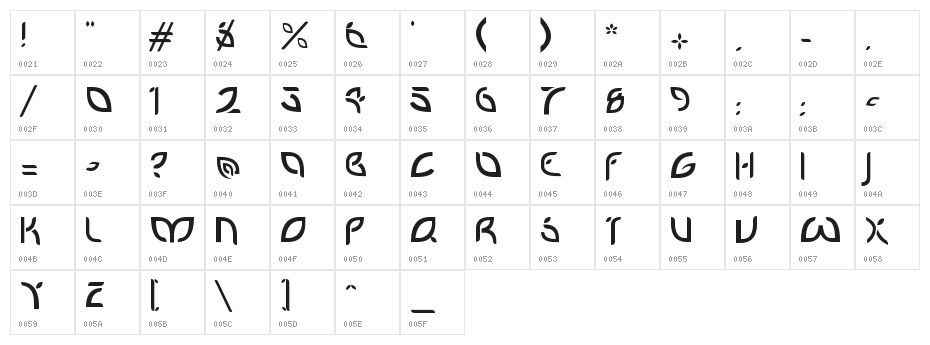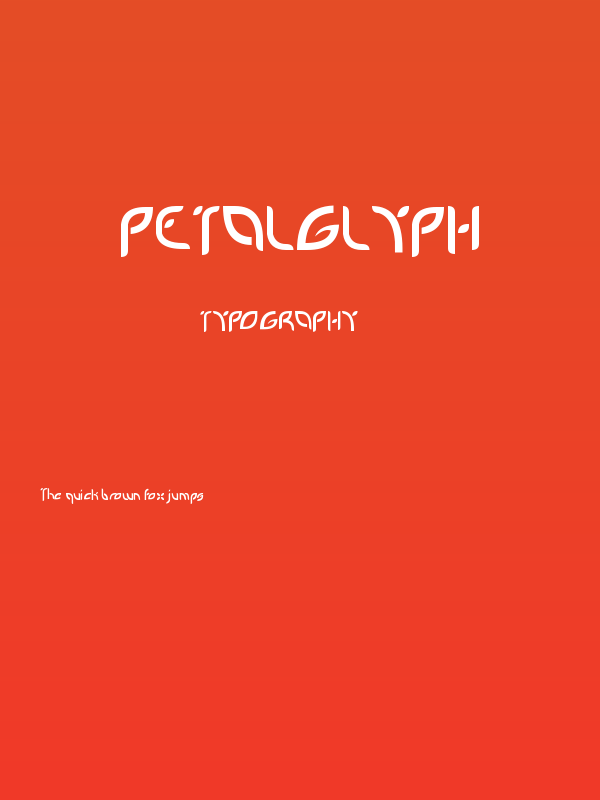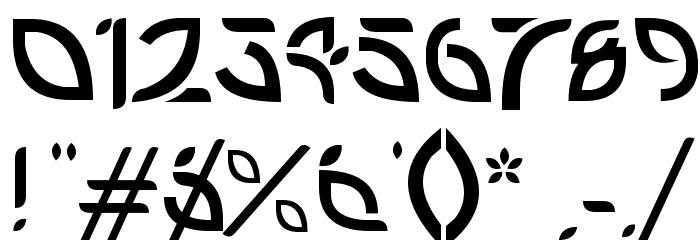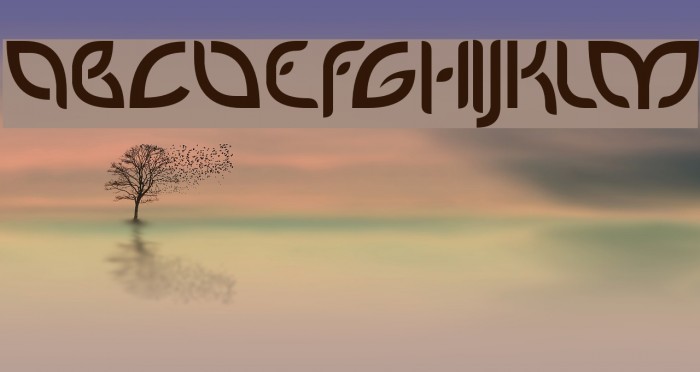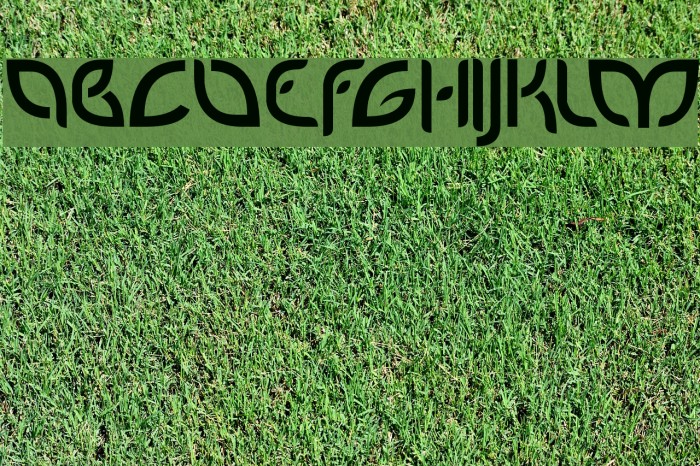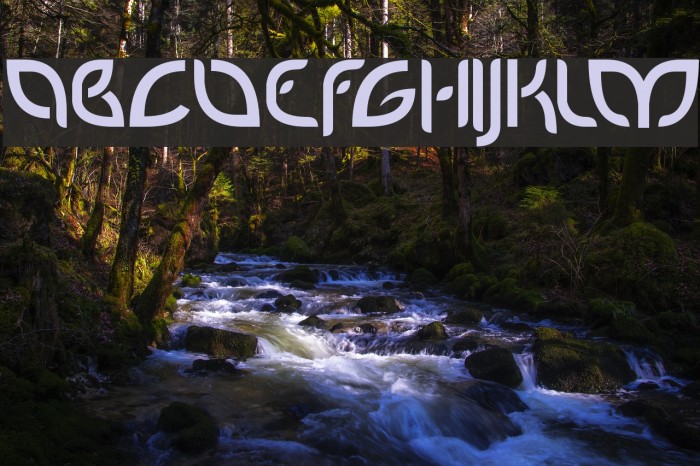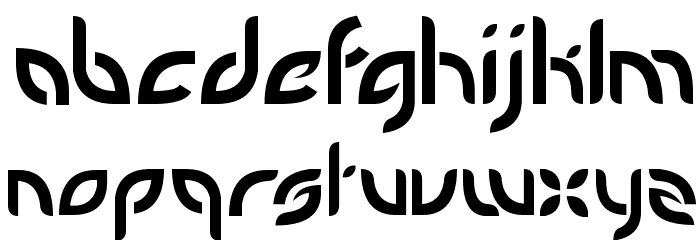
PetalGlyph Font
PetalGlyph Description
This font features a unique and artistic design with a futuristic and abstract aesthetic. The characters are composed of bold, curved lines that create a sense of movement and flow. Each letter and number has a distinct, almost organic shape, reminiscent of petals or leaves, giving it a natural yet modern feel. The special characters are equally stylized, maintaining the cohesive look of the entire set. This font is ideal for creative projects that require a distinctive and eye-catching typeface.
| Use Case | Logos, Posters, Branding |
| Proposed Projects | Ideal for branding, logos, posters, and any creative project that needs a modern and artistic touch. |